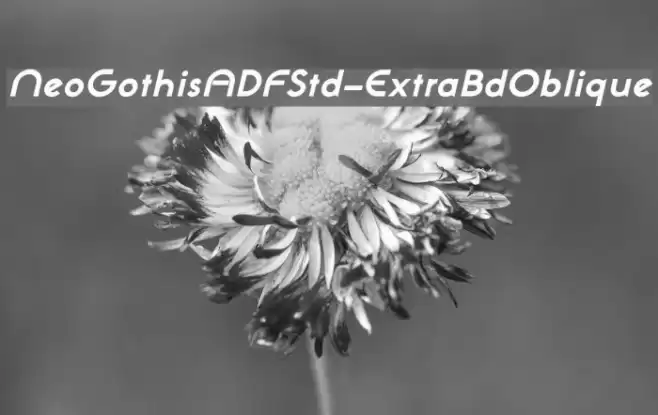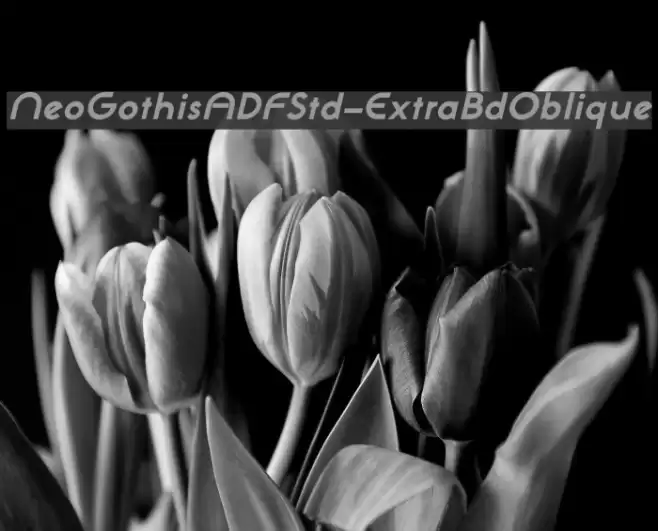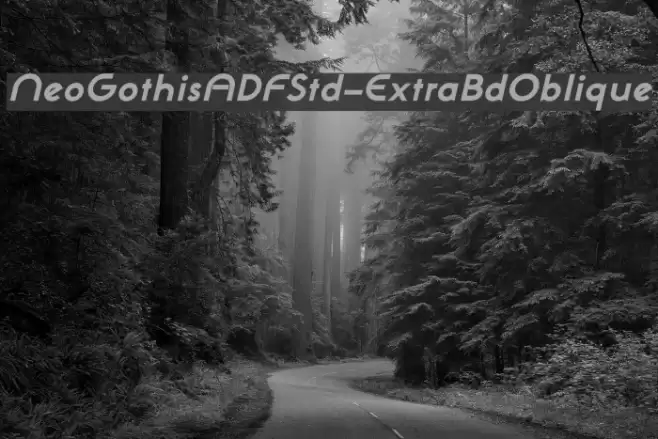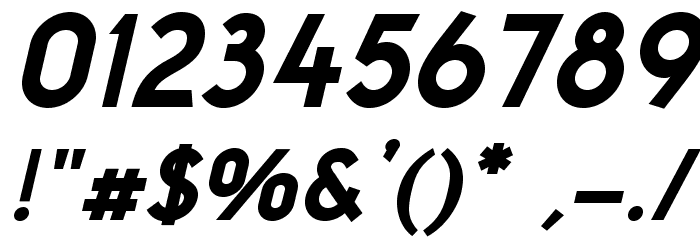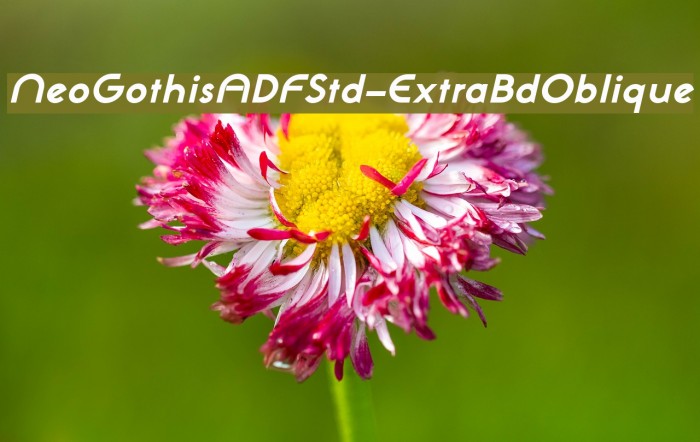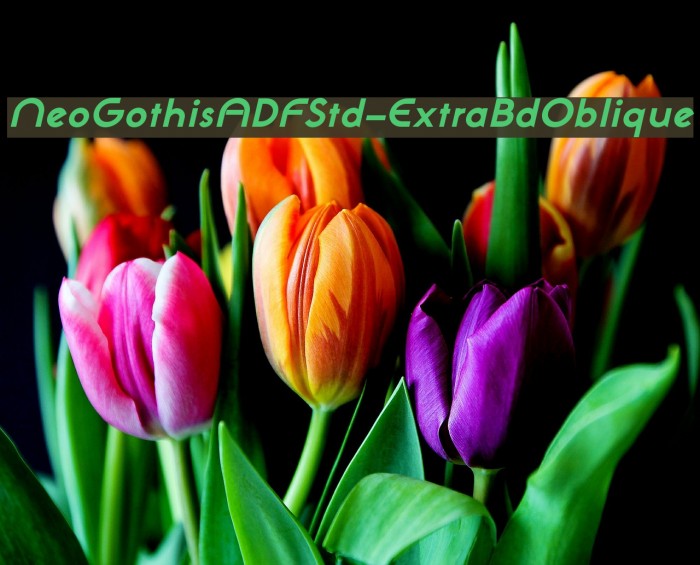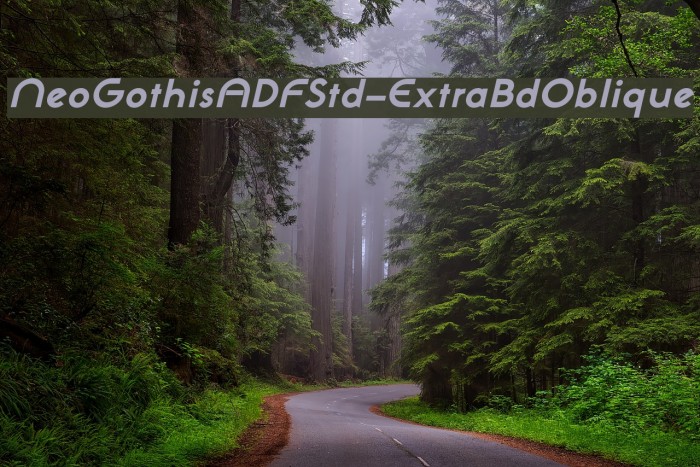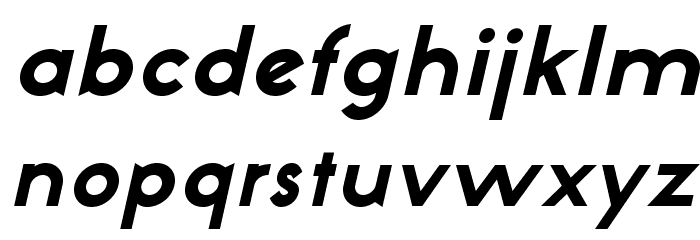
NeoGothisADFStd-ExtraBdOblique Font
NeoGothisADFStd-ExtraBdOblique Description
This font features a bold and oblique style, characterized by its strong, angular lines and a modern, dynamic appearance. The uppercase letters are slightly condensed, giving a sleek and compact look, while the lowercase letters maintain a consistent flow with rounded edges. The numerals are bold and clear, ensuring legibility. Special characters are designed to complement the overall aesthetic, with a focus on maintaining balance and harmony across all glyphs. The font's style is suitable for making a strong visual impact, ideal for headlines or branding projects.
A bold, oblique font with a modern and dynamic style from Uncategorized fonts.
- Proposed Projects: Ideal for headlines, branding, advertising, and modern design projects.